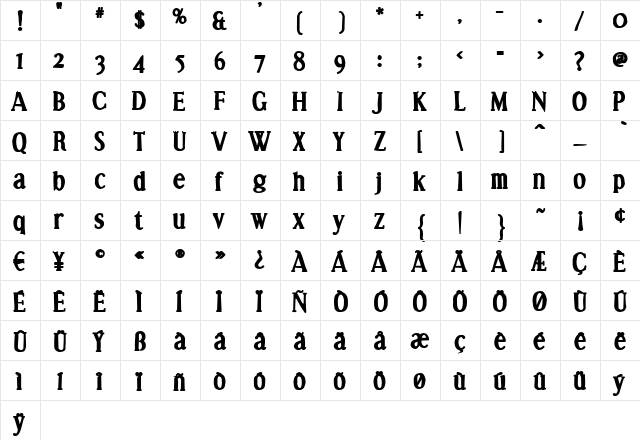
Effloresce Ink Regular
Design Context for Effloresce Ink Typeface
Effloresce Ink offers clean, dependable letterforms without strong stylistic allegiance, making it a practical choice for designers who need flexibility.